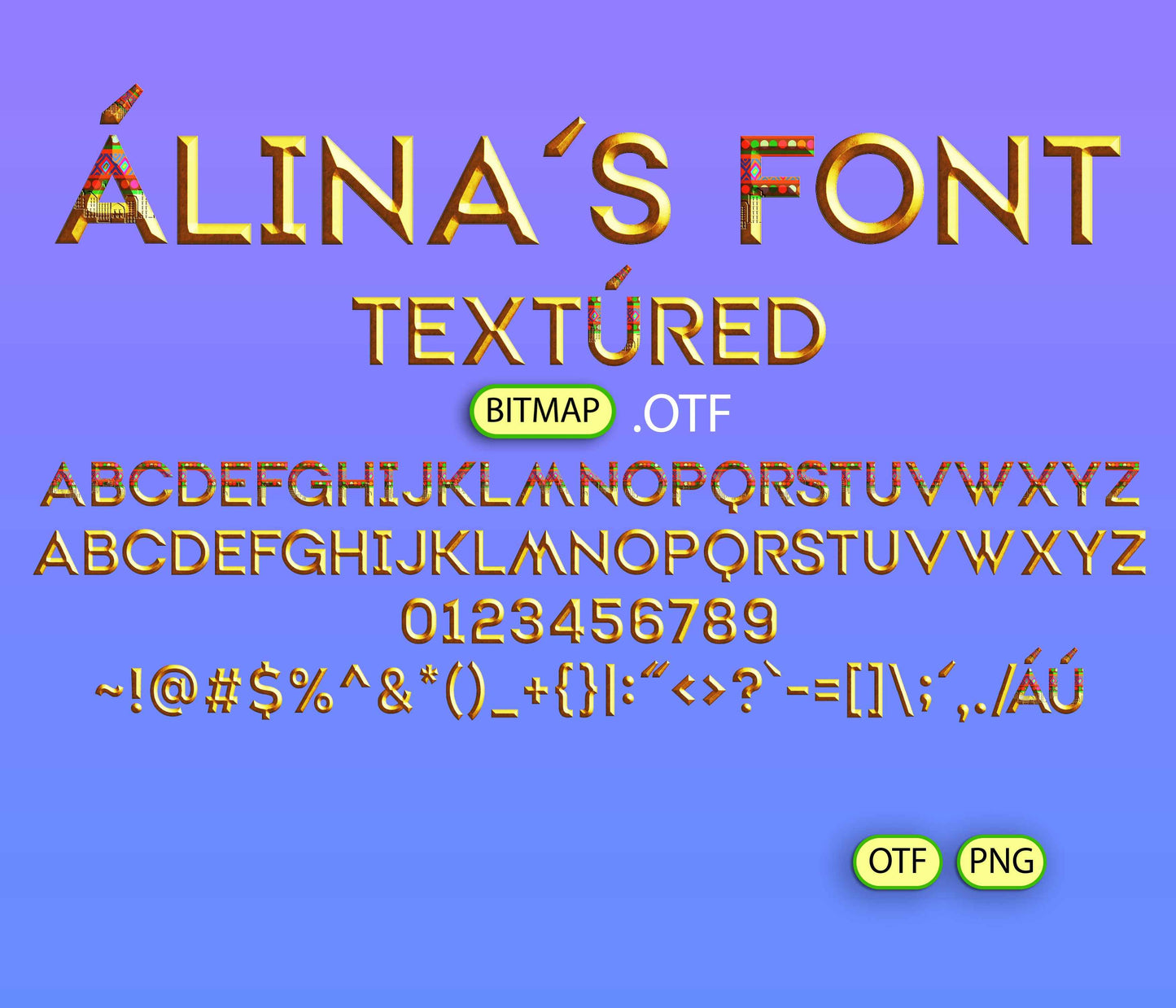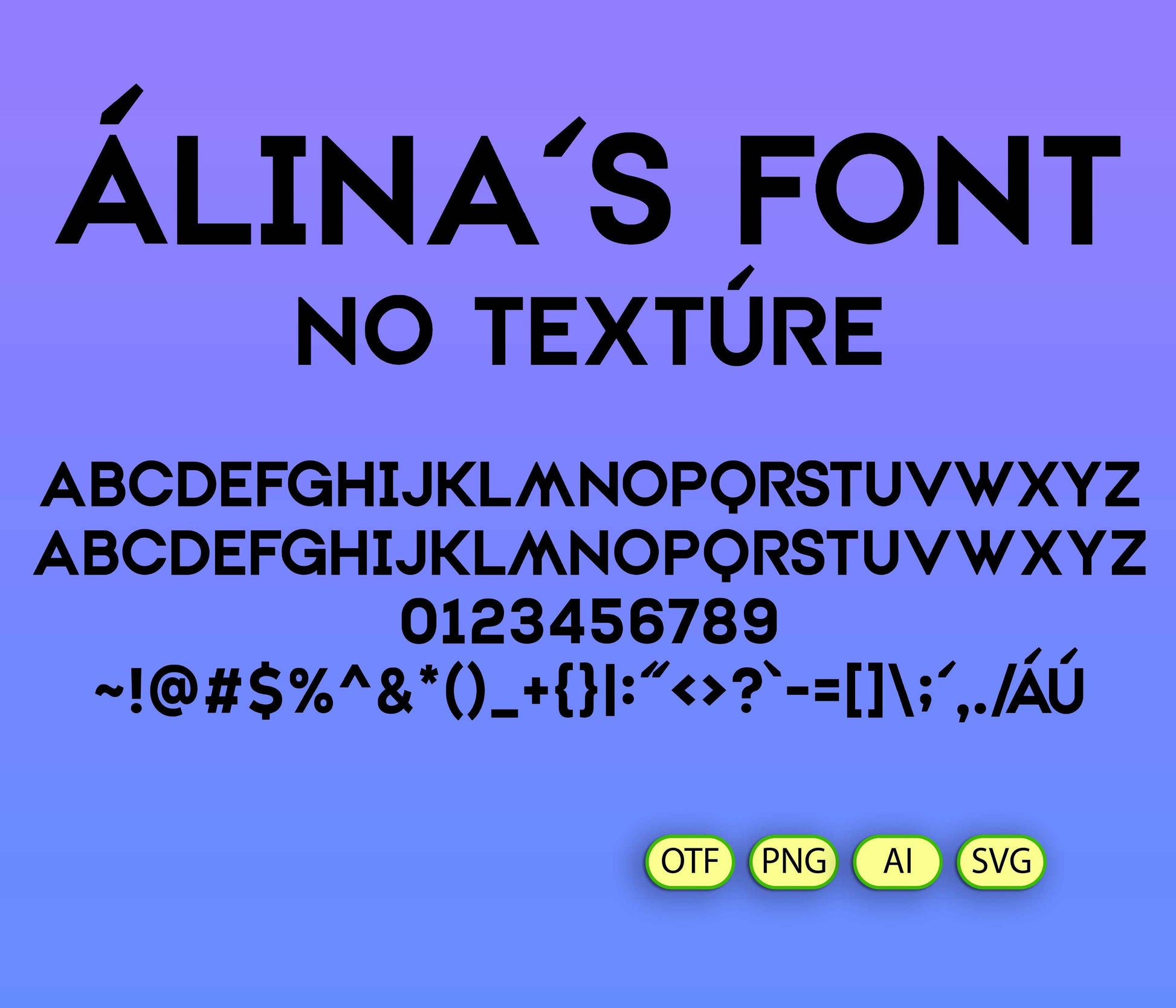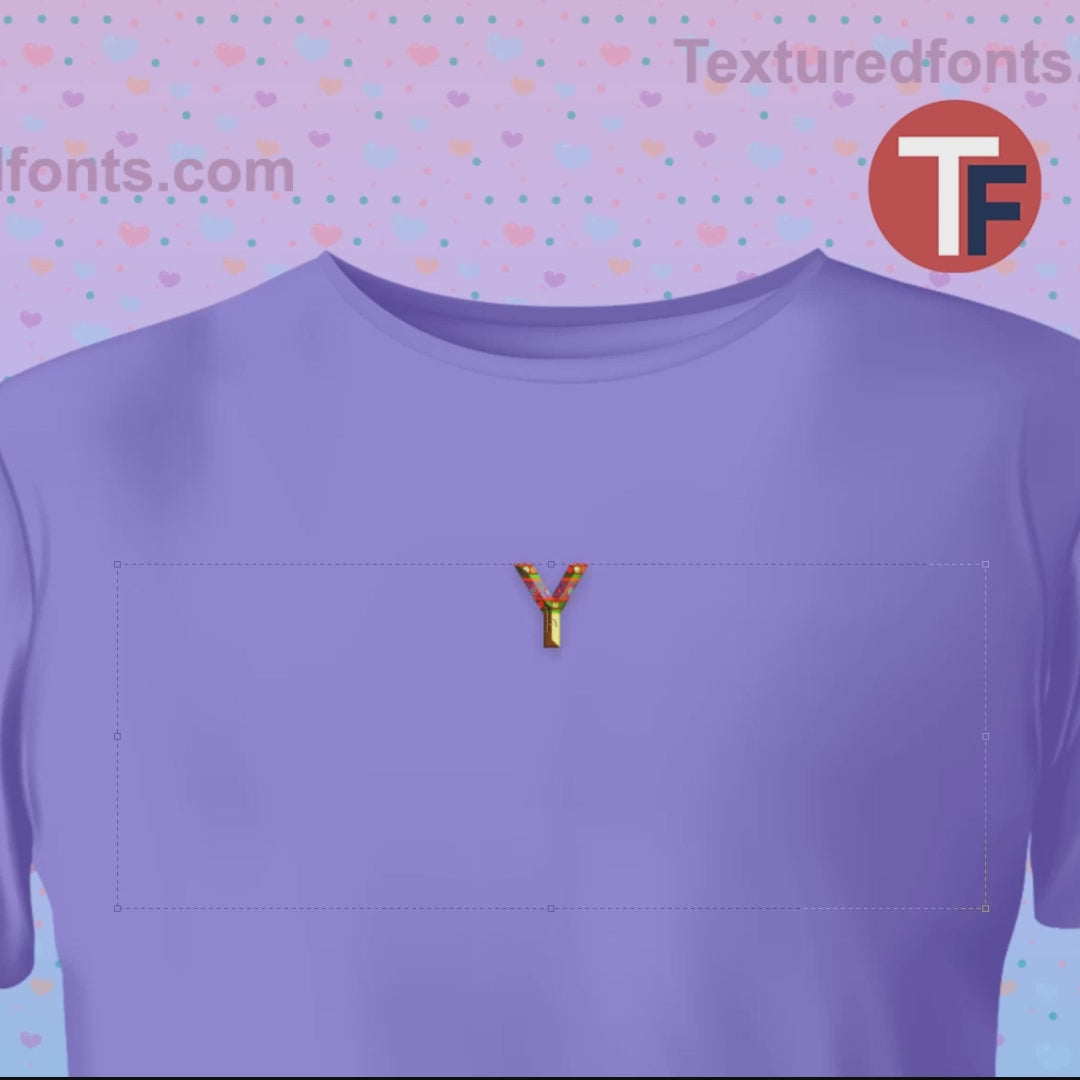
Futurist Africa Font Textured
Step into the Future with the Futurist Africa Font
Immerse yourself in the innovative and visionary world of Futurist Africa with our specially designed font, inspired by a groundbreaking series set in a futuristic version of Lagos. Perfect for fans of the show and creators looking to capture the essence of advanced African culture and technology, our Futurist Africa-inspired font brings the cutting-edge and culturally rich themes of the series into your projects. Whether you're designing for tech startups, cultural exhibitions, or digital media, this font ensures your work resonates with the forward-thinking spirit of Futurist Africa.
The versatility of the Futurist Africa font makes it an ideal choice for various creative and commercial projects:
1. Cultural Events: Enhance promotions for festivals or exhibitions showcasing African art and technology.
2. Tech Companies: Ideal for branding and promotional materials for startups and tech ventures inspired by African innovation.
3. Digital Media: Use in web design, social media, and online content to appeal to a global audience interested in African futures.
4. Educational Content: Suitable for materials in schools and universities that focus on African studies or technology.
5. Creative Arts: Perfect for movie posters, book covers, and other visual media exploring themes similar to the series.
6. Personal Projects: Customize personal blogs, DIY crafts, and home decor with a touch of futuristic Africa.
7. Video Production: Use for titles and credits in documentaries or features on modern African cities and cultures.
Features and Compatibility
Our Futurist Africa-inspired font not only pays tribute to the series but also celebrates the blend of culture and technology that defines African futurism. Whether you are engaging in artistic endeavors, educational projects, or commercial ventures, this font allows you to communicate with the innovative and inspiring essence of the series. Let each character you type reflect the themes of progress and cultural richness, making your projects not only visually striking but also deeply meaningful.